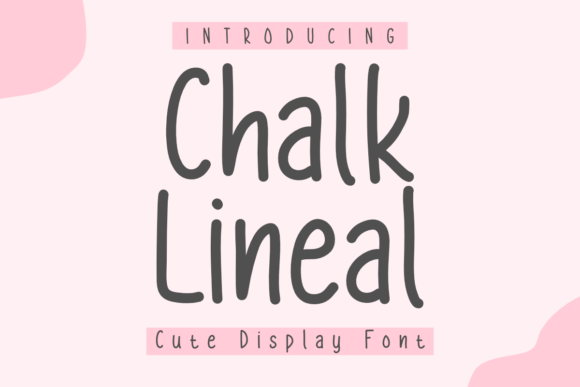
Welcome to the whimsical world of Chalk Lineal, a display font that dances between the playful charm of chalkboard lettering and the sleek modernity of a linear design. Crafted with love by Black Skin, this enchanting font is ready to add a spark of creativity and expression to your visual creations.
Picture this: a playful poster that captures the attention of passersby, a whimsical sign that leads customers to hidden gems, or a captivating YouTube intro that sets the stage for unforgettable experiences. Chalk Lineal is the artistic brushstroke that brings these visions to life.
Its tall and linear silhouette lends an air of sophistication, while its playful curves and charming imperfections evoke the nostalgic warmth of childhood memories. Chalk Lineal is not just a font; it's a portal to a world of imagination and endless possibilities.
Creators seeking to make a lasting impression will find solace in Chalk Lineal's versatility. Whether you're designing eye-catching headlines, captivating social media posts, or unforgettable branding materials, Chalk Lineal stands ready to elevate your creations.